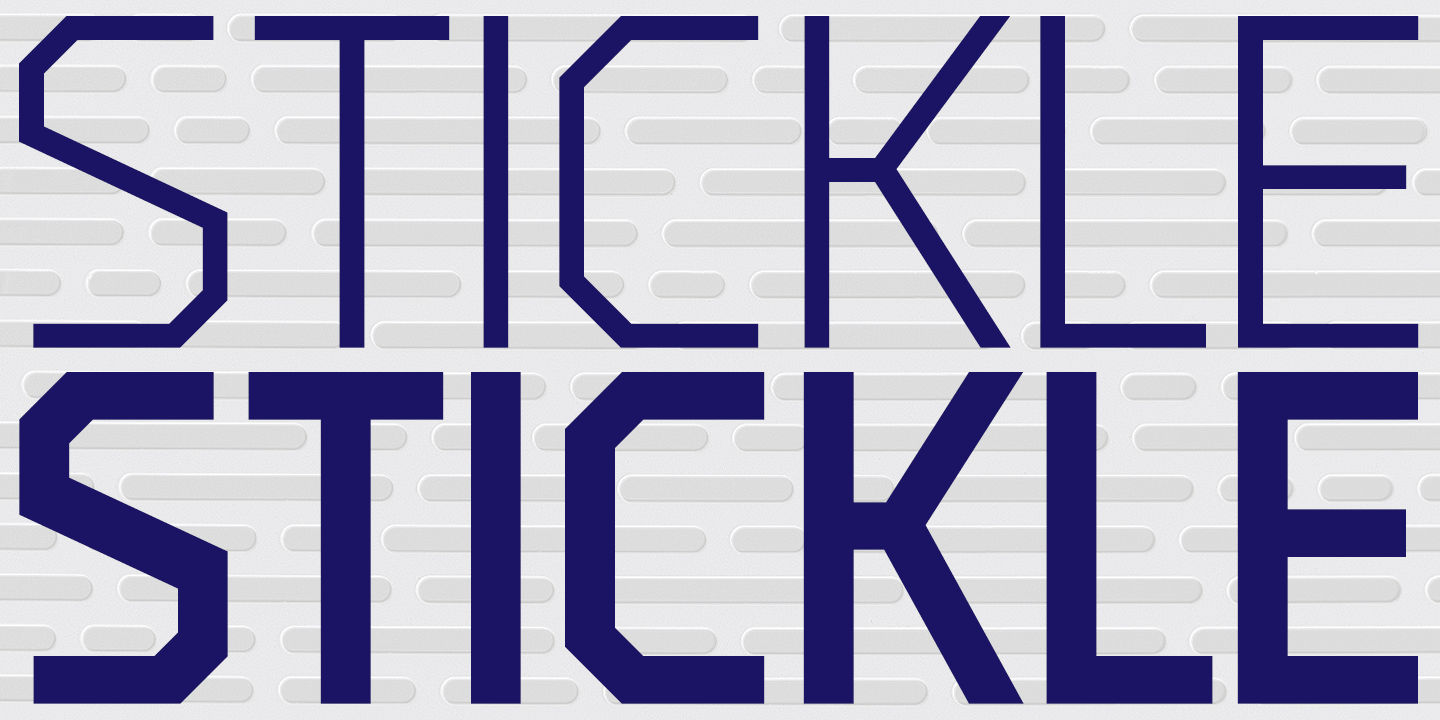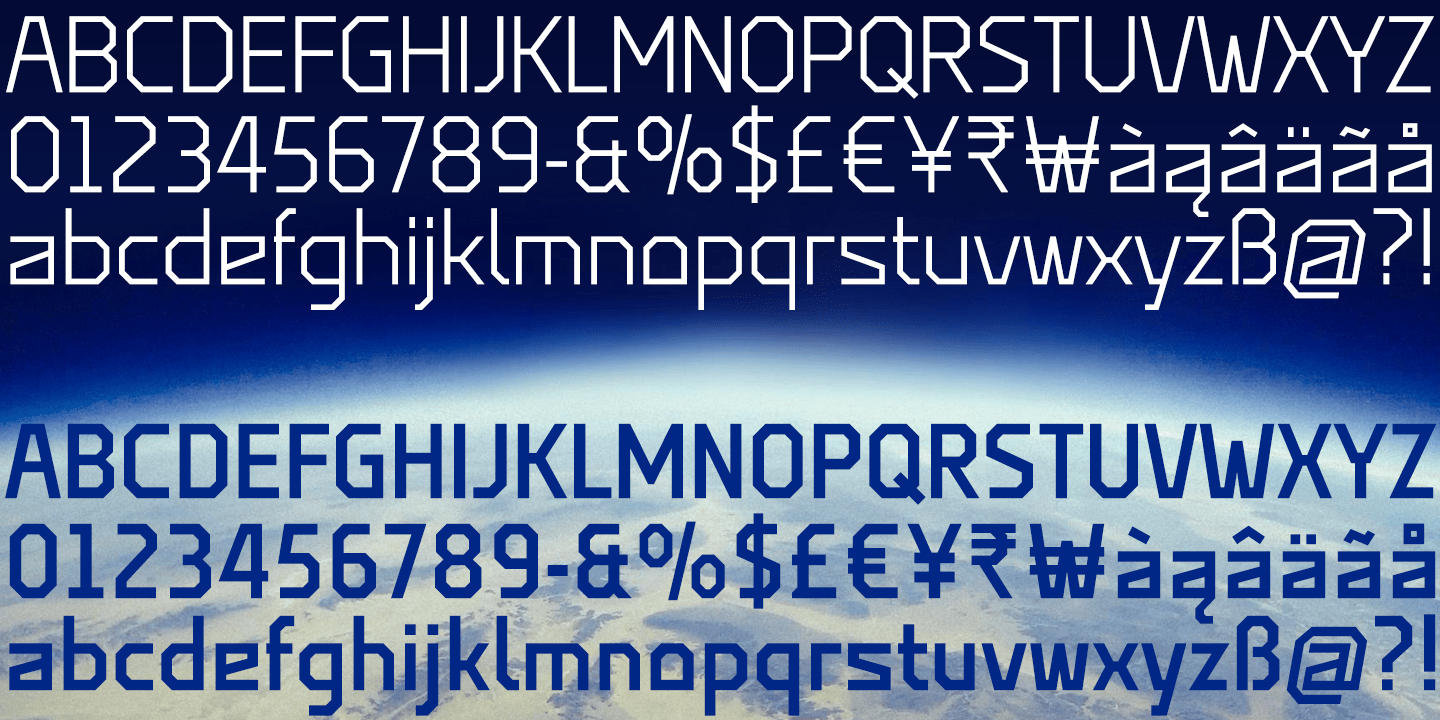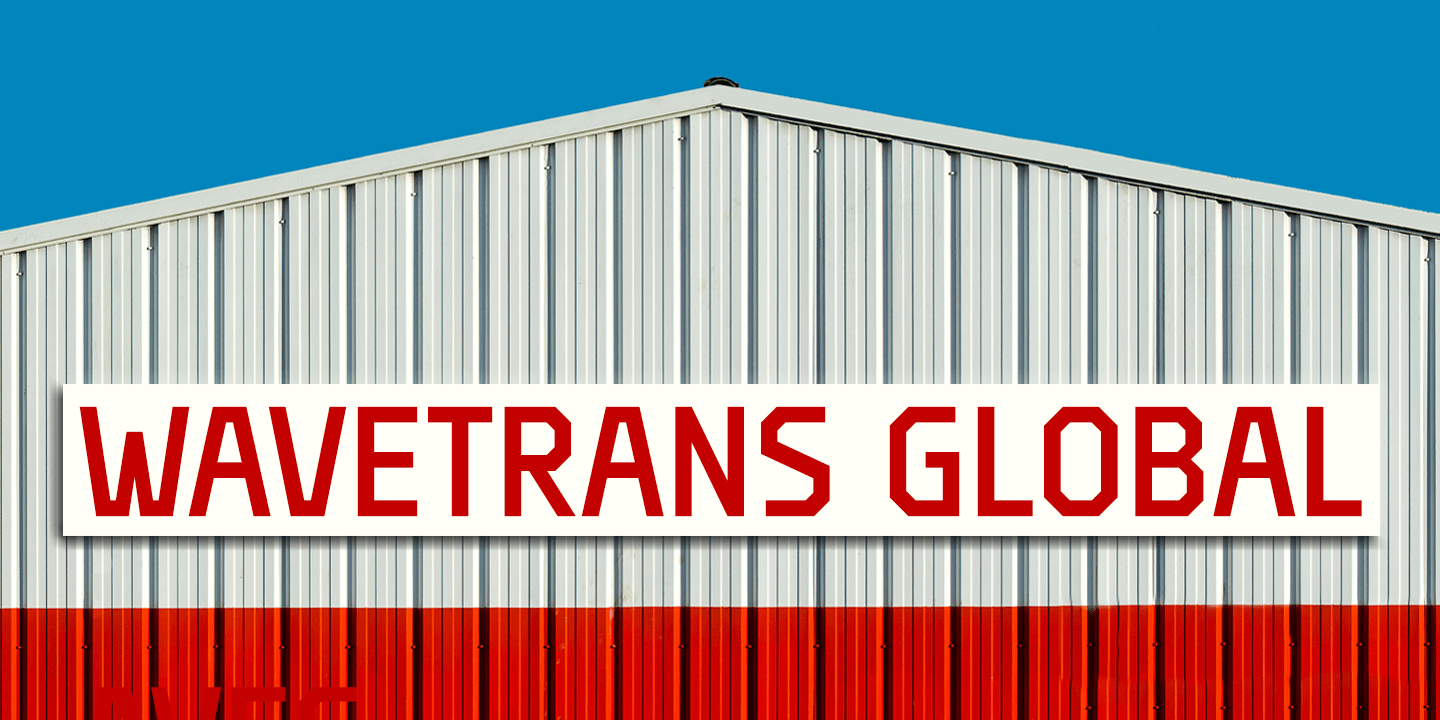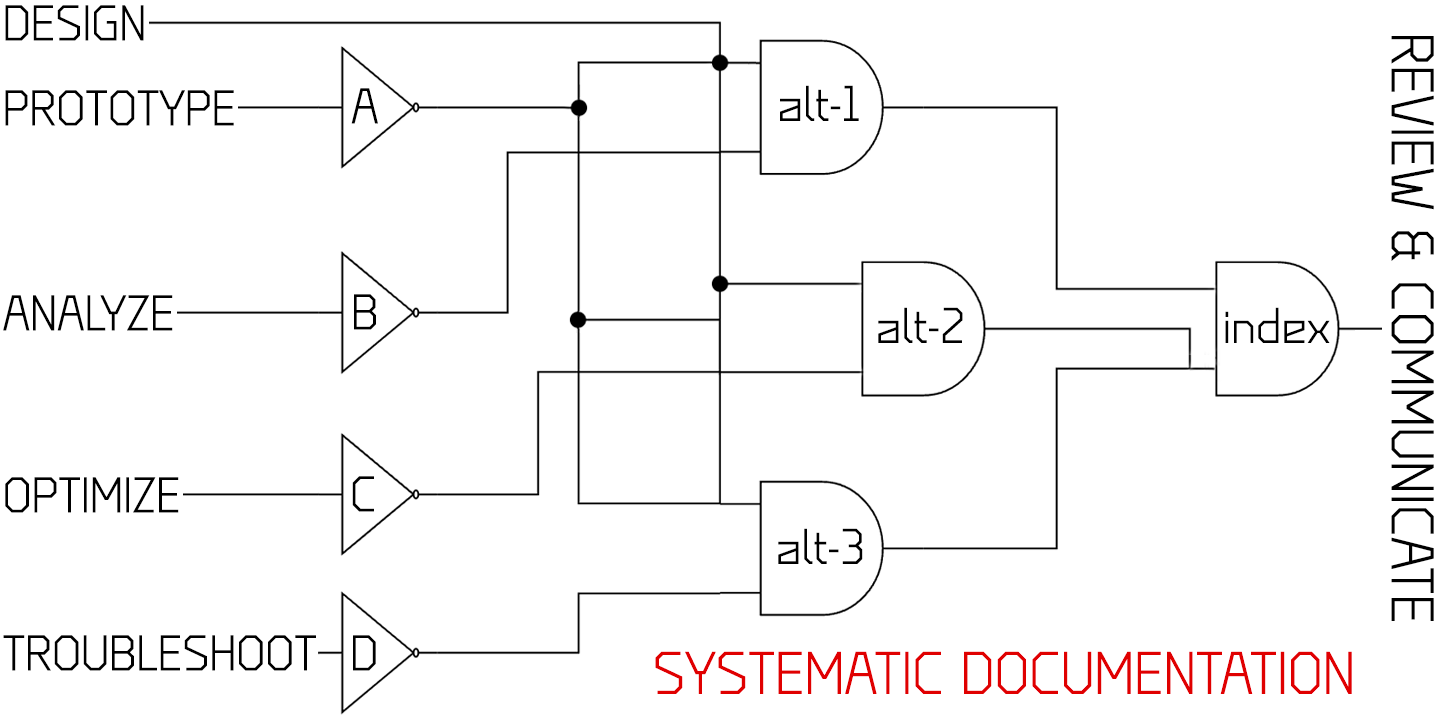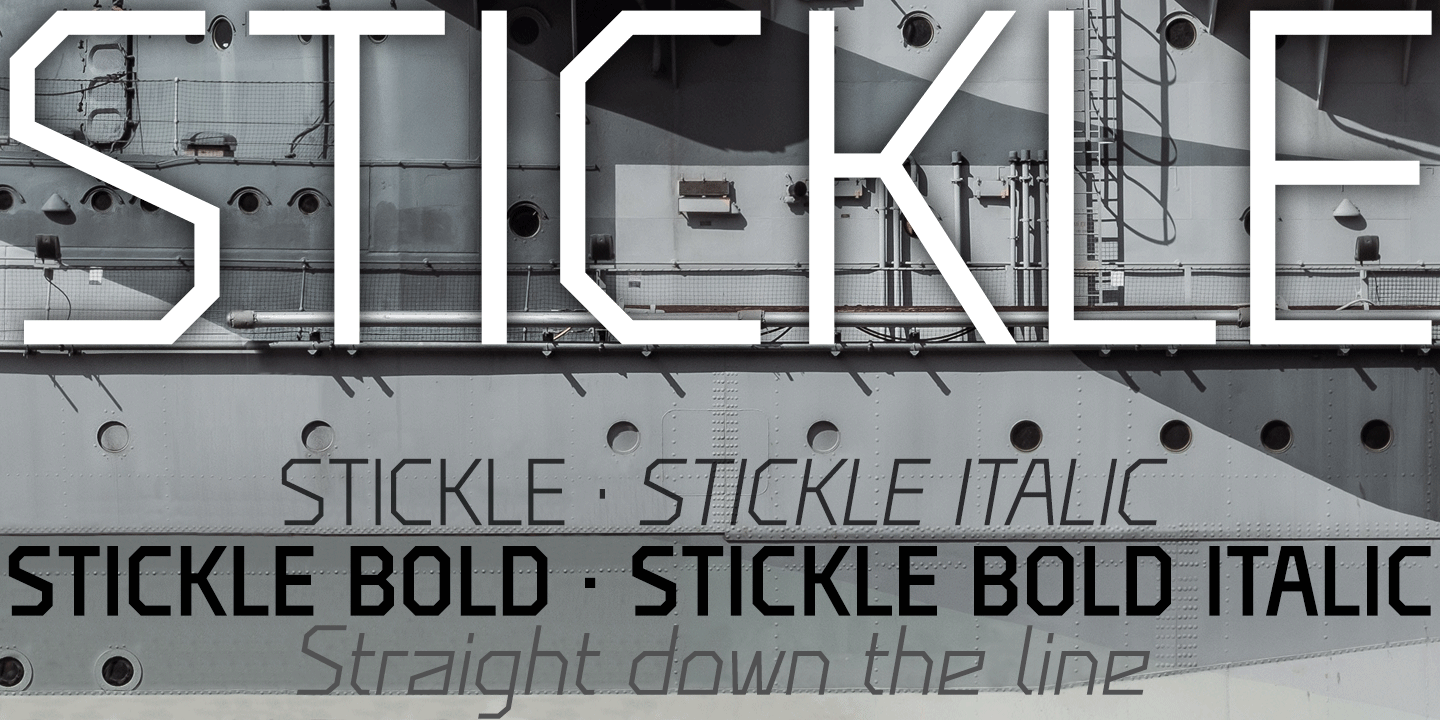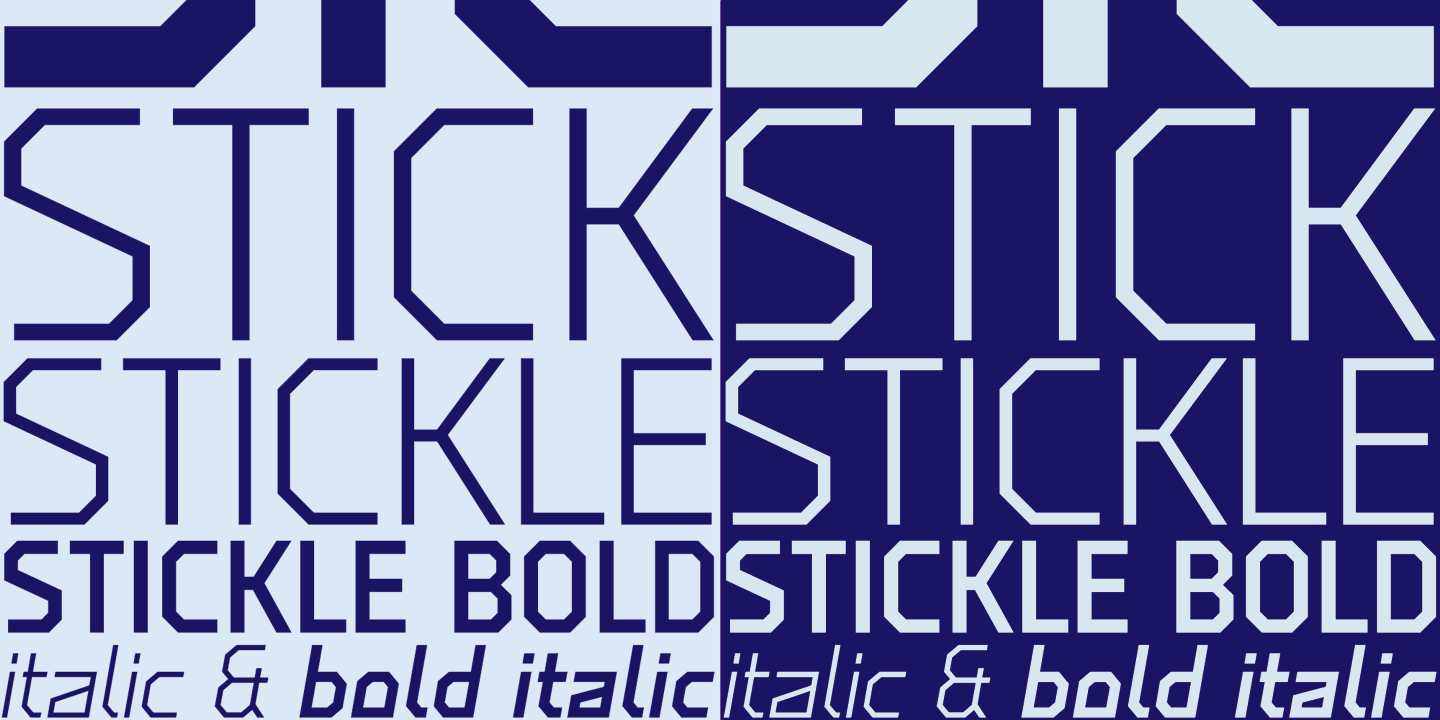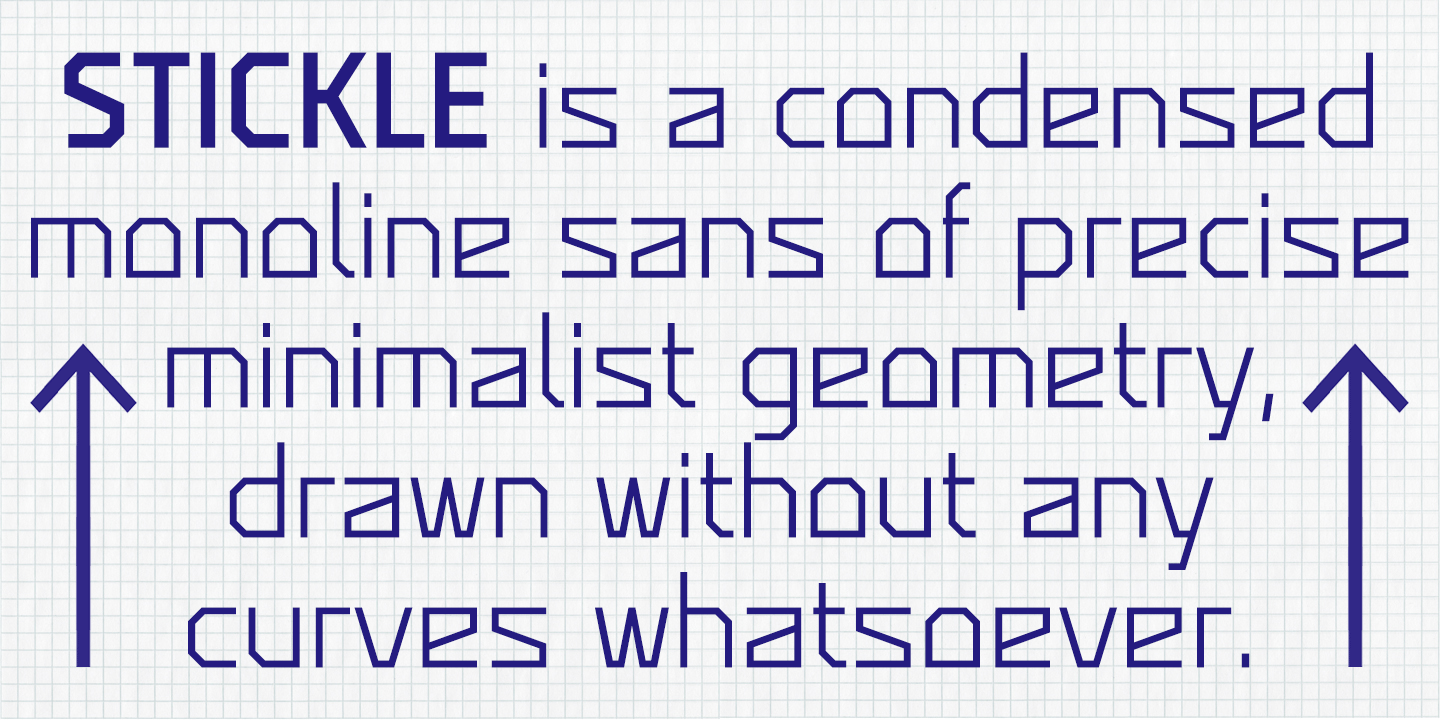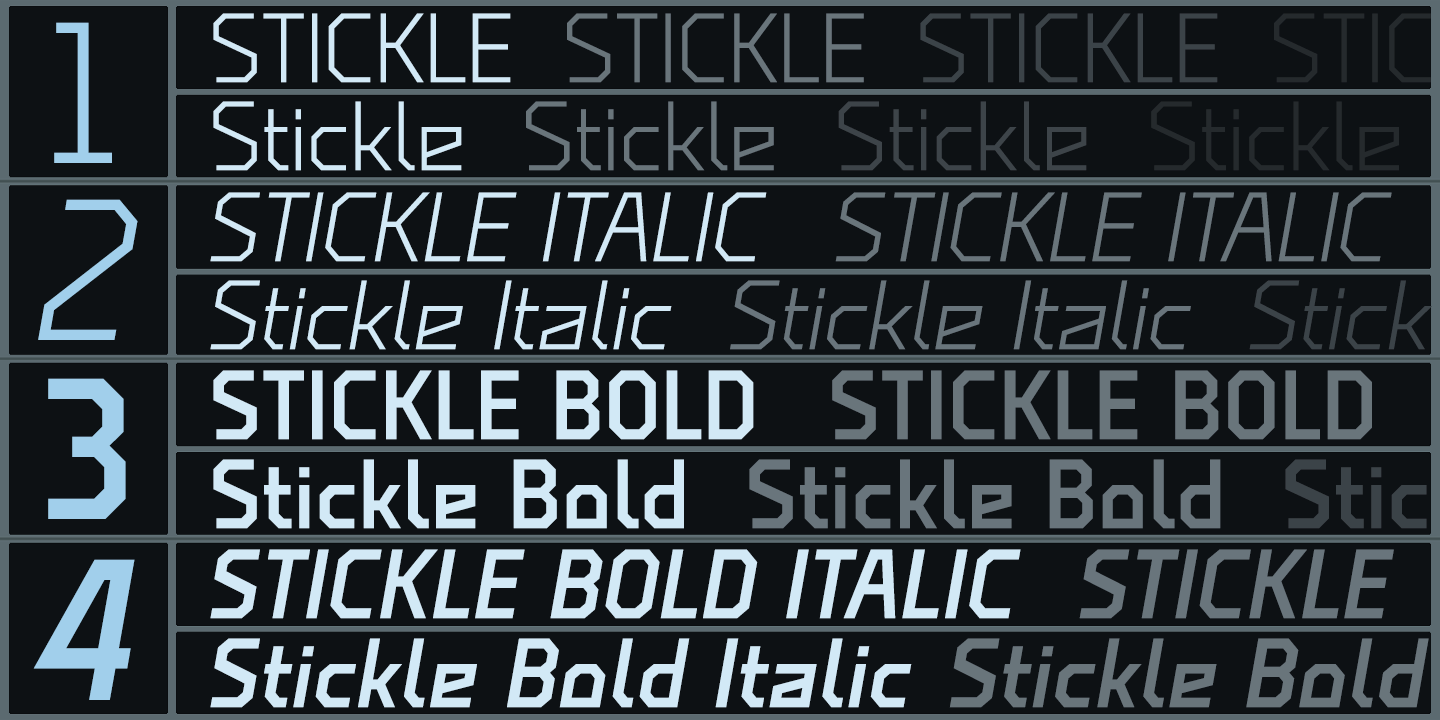
Stickle
Stickle is a condensed monoline sans of precise, minimalist geometry, drawn without any curves whatsoever. Reminiscent of the experimental, futuristic fonts of early computing, the face evokes the functional simplicity of official documents, equipment markings and engineering diagrams.